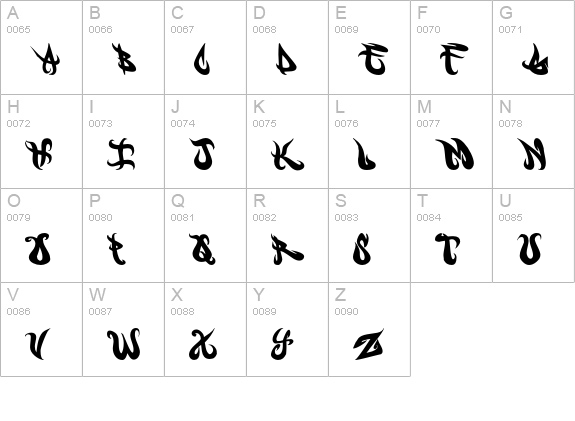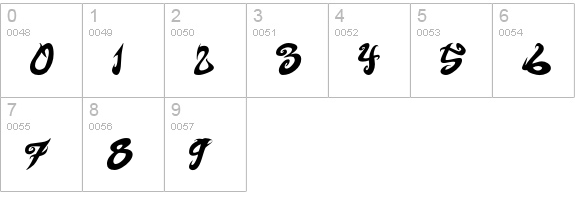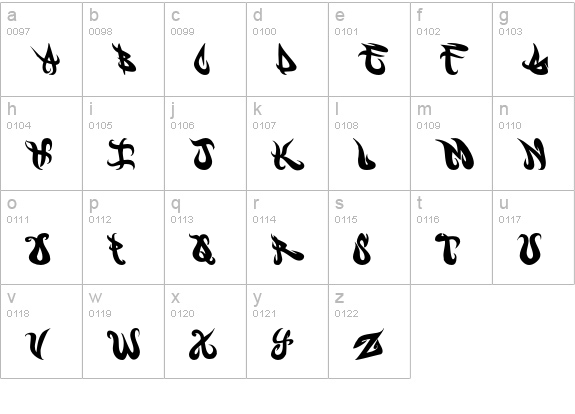
NIRVANA Font Details
NIRVANA font is a beautifully crafted typeface that exudes elegance and sophistication. Its sleek and modern design makes it the perfect choice for a wide range of design projects, from branding to editorial design. The clean lines and sharp edges of this font give it a contemporary feel that is sure to make a statement. What sets NIRVANA font apart is that it is not only stylish and versatile, but also completely free to download. Yes, you read that right - this stunning font is available for free at FontsMarket.com. So whether you're a professional designer looking to add a new tool to your creative arsenal or a hobbyist looking to spice up your projects, NIRVANA font is the perfect choice. Download it today and let your creativity soar!